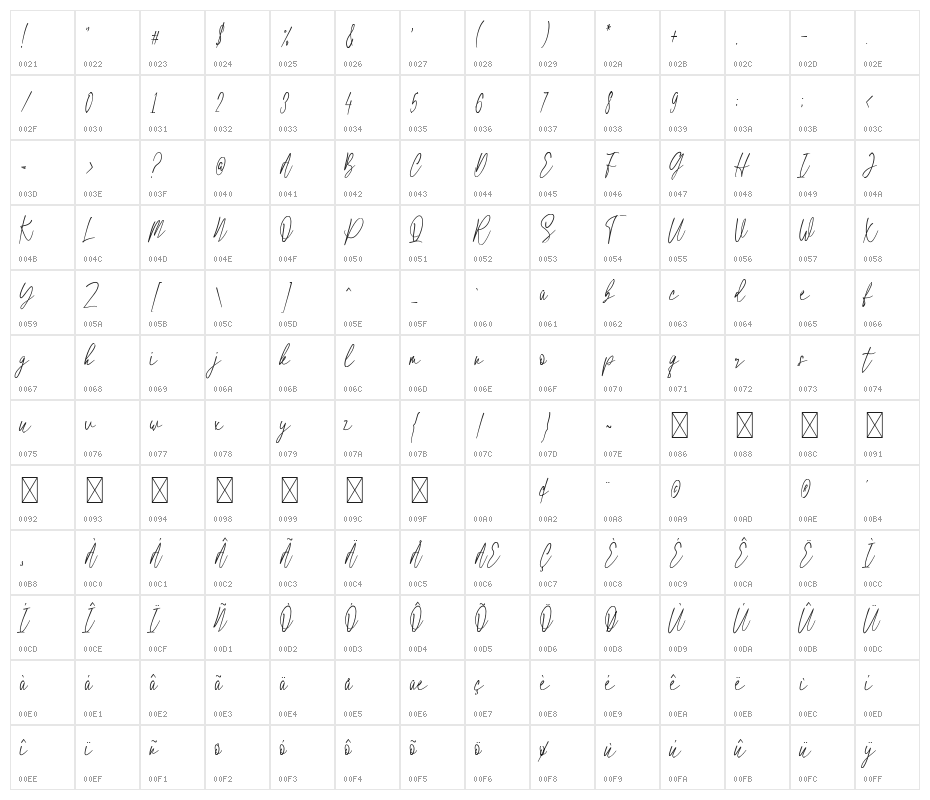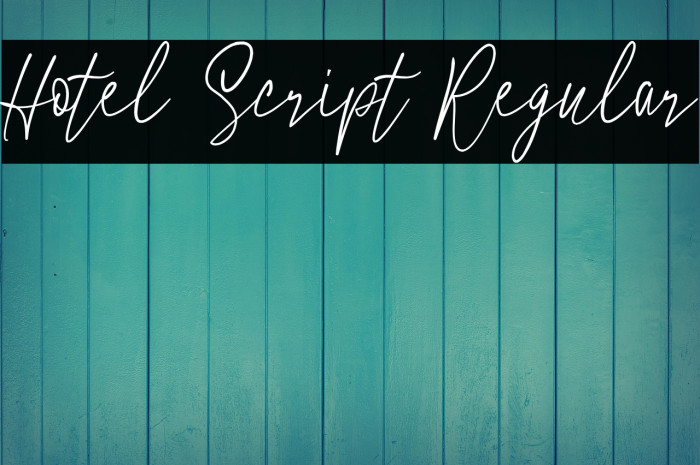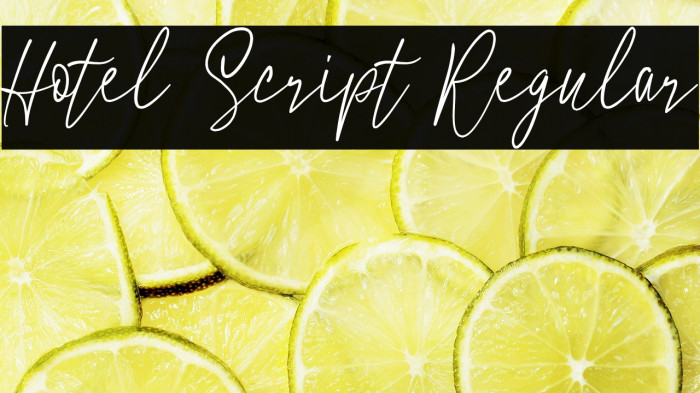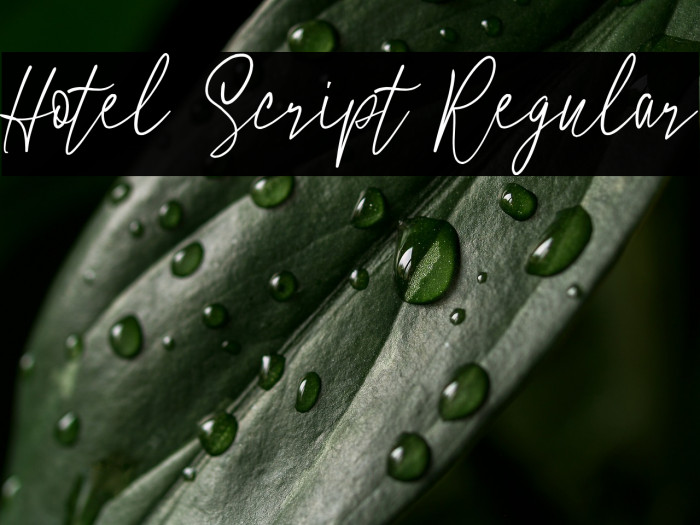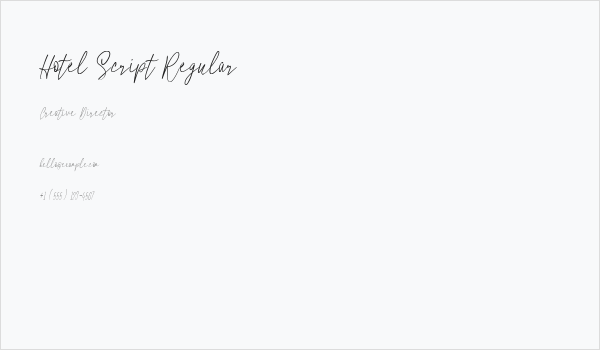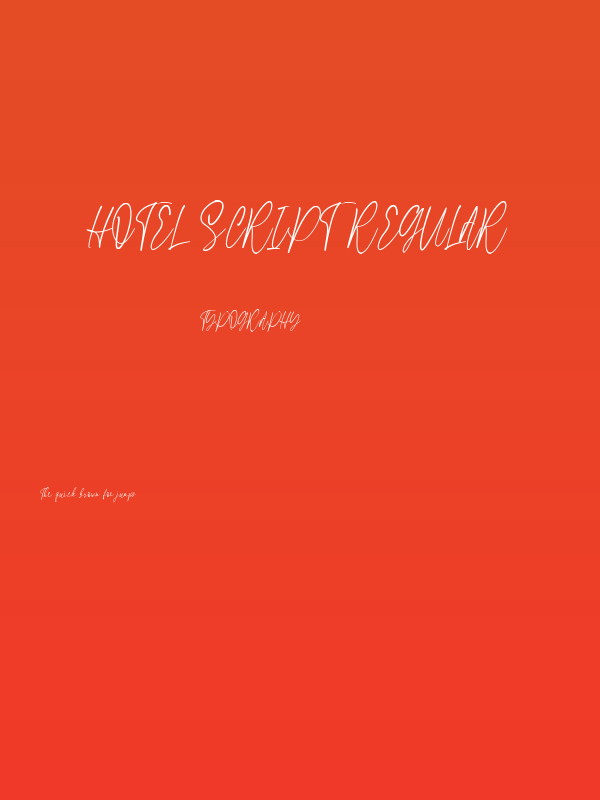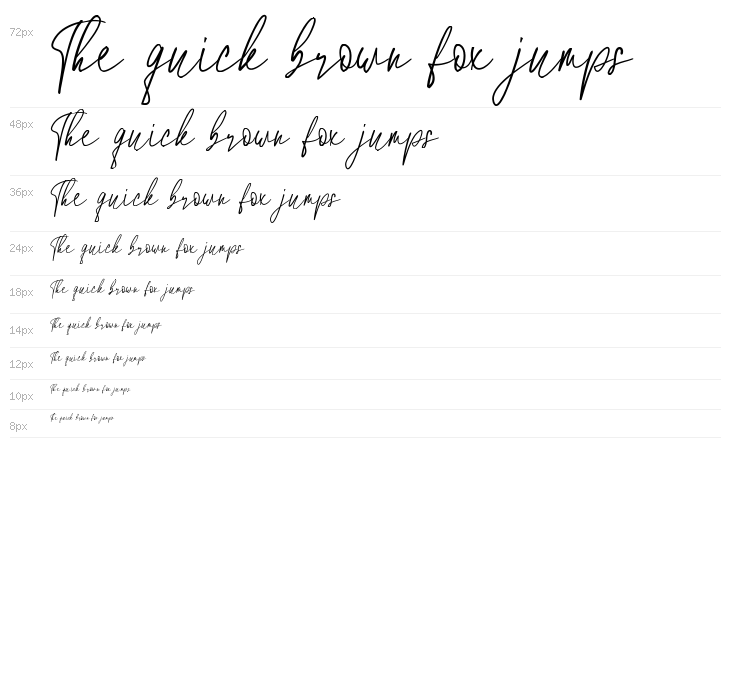
Hotel Script Regular Font
Hotel Script Regular Description
This elegant script font exudes a sense of sophistication and fluidity, characterized by its flowing, cursive letterforms. The strokes are smooth and connected, giving it a handwritten appearance that is both graceful and stylish. The uppercase letters are slightly more elaborate, while the lowercase letters maintain a consistent, flowing style. The numerals and special characters complement the overall aesthetic, making it versatile for various design needs. The font's delicate lines and artistic flair make it suitable for projects that require a personal touch.
| Overall Style | Elegant and Artistic |
| Use Case | Logos, Invitations, Personal Stationery |
| Proposed Projects | Ideal for wedding invitations, greeting cards, elegant branding, and personal stationery. |